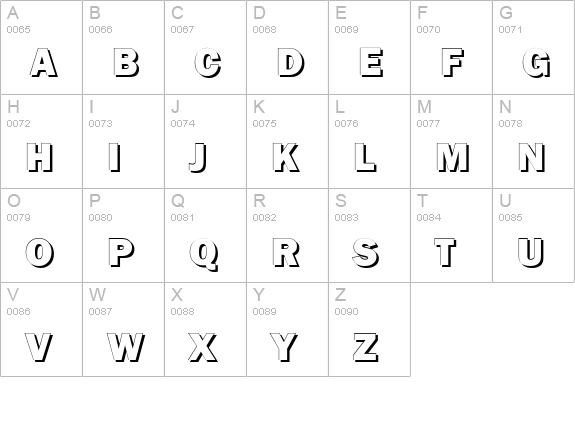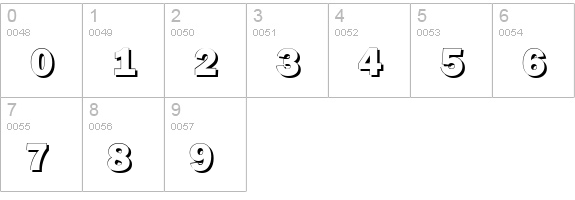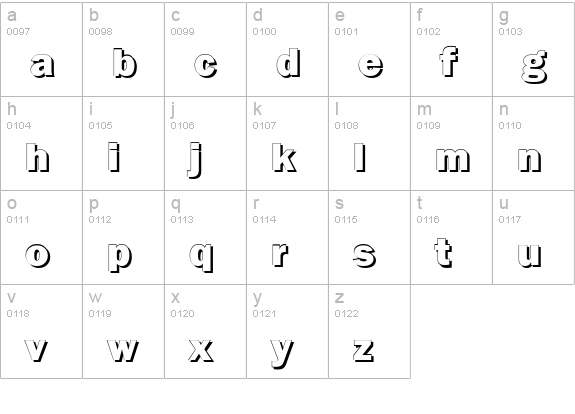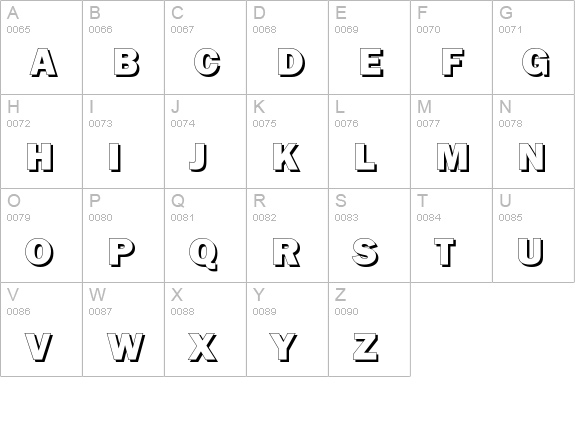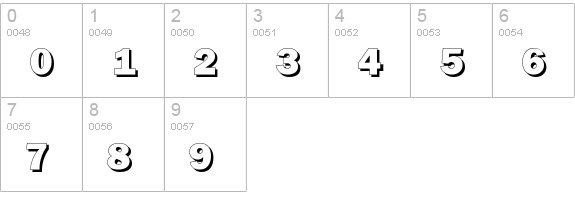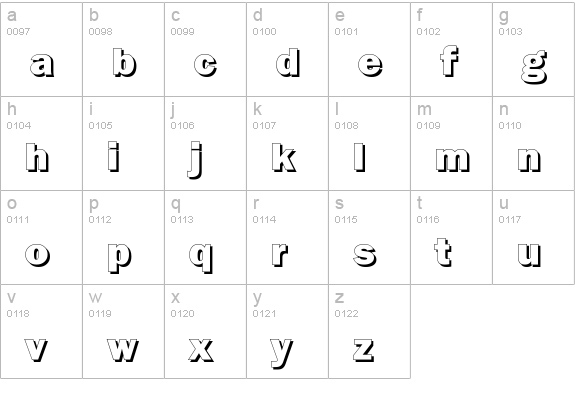
Goffik-Shadow Font Details
Goffik-Shadow font is a bold and edgy typeface that exudes a mysterious and gothic vibe. Its unique design features sharp angles and intricate shadows, making it perfect for adding a touch of darkness to any design project. This font is ideal for creating eye-catching headlines, logos, and posters that demand attention. What makes Goffik-Shadow font even more appealing is that it is completely free to download at FontsMarket.com. With just a few clicks, you can add this striking font to your collection and start using it in your creative endeavors. Whether you're a graphic designer, a web developer, or simply someone looking to spice up their projects with a touch of the unconventional, Goffik-Shadow font is a must-have. Download it today and let your creativity run wild with this captivating and free font.